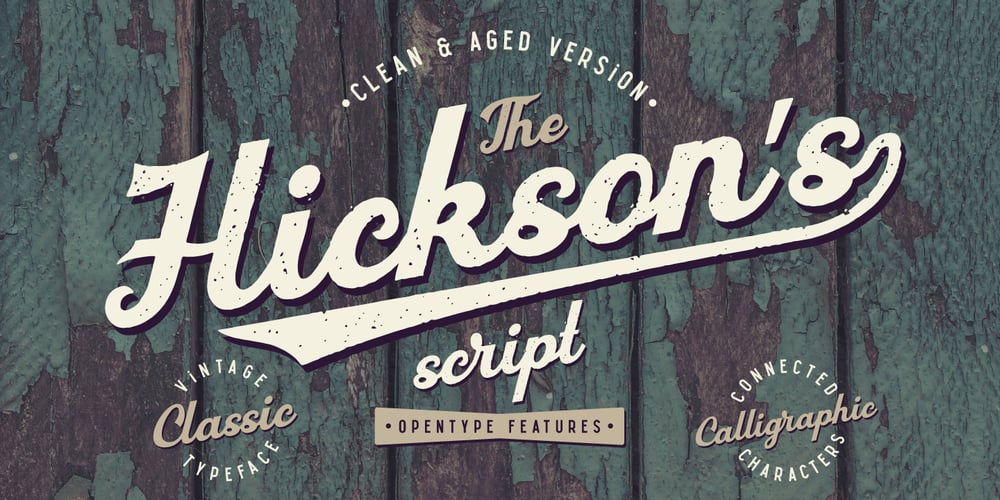
Hicksons Font Family was designed by Gleb Guralnyk and published by Gleb Guralnyk. Hicksons contains 2 styles and family package options. Hicksons is a new calligraphic vintage script. It has a classic authentic look in two variations with clean and aged textured characters. This font has lots of OpenType features, like ligatures, swashes and stylistic alternates. Thank you and have a nice day!